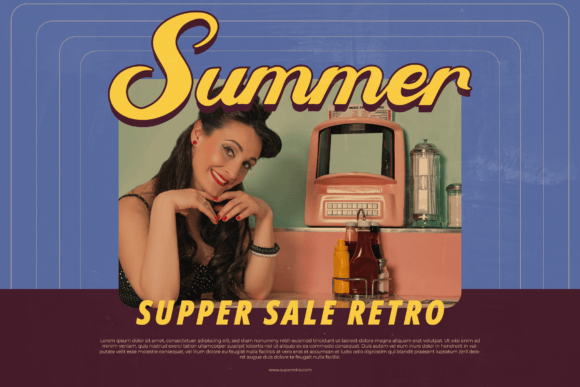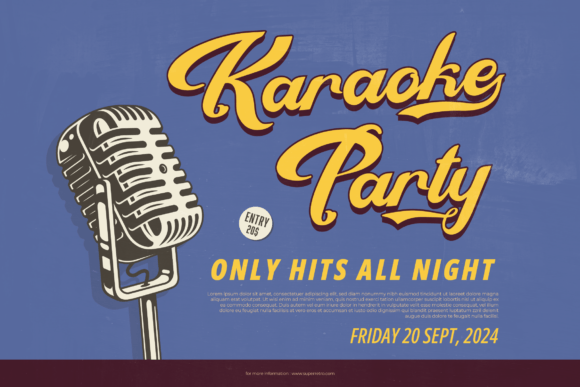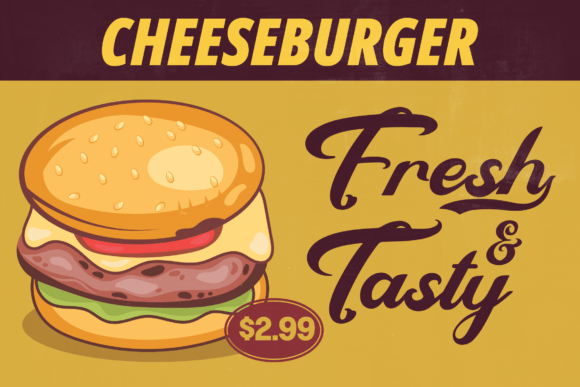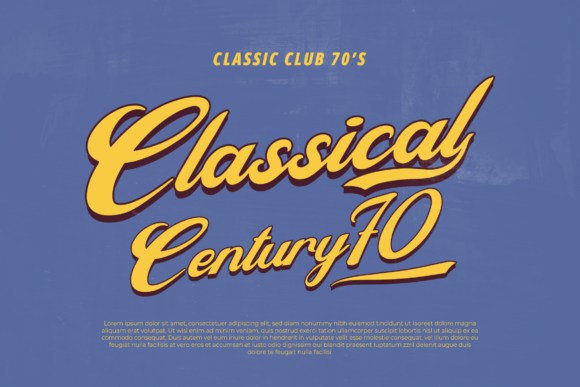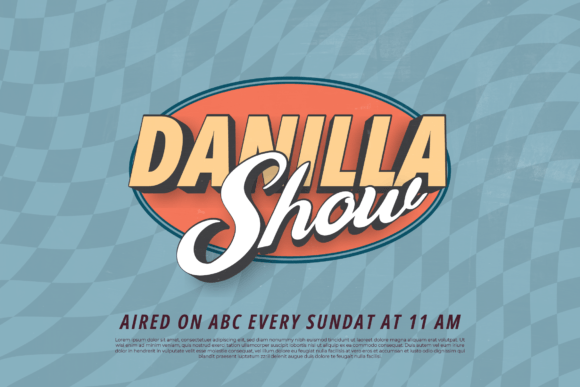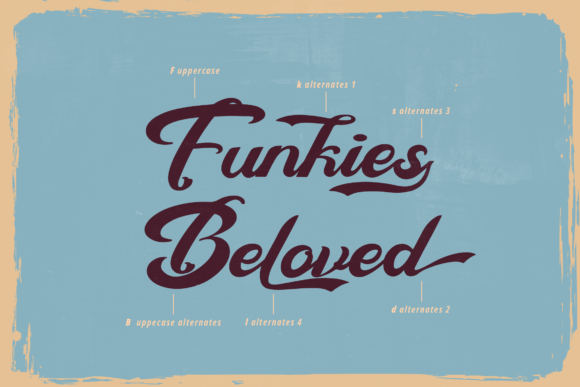
Introducing Berdy Danilla Font: A Retro Script Font with a Classic, Playful Look
Are you looking for a font that can add a touch of nostalgia to your designs? Do you want to evoke a sense of the past in your invitations, posters, or branding? Look no further than Berdy Danilla Font, a retro script font that has a classic, playful look. In this article, we’ll explore the features of Berdy Danilla Font and why it’s perfect for vintage-themed designs.
What is Berdy Danilla Font?
Berdy Danilla Font is a retro script font that has been designed to resemble classic scripts from the past. Its letters are smooth and rounded, giving it a soft, playful look that’s perfect for designs that want to evoke a sense of nostalgia. The font is highly legible, making it suitable for use in a variety of applications, from invitations and posters to branding and packaging.
Key Features of Berdy Danilla Font
- Retro Script Style: Berdy Danilla Font has a classic, retro script style that’s perfect for vintage-themed designs.
- Smooth and Rounded Letters: The font’s letters are smooth and rounded, giving it a soft, playful look.
- Highly Legible: Berdy Danilla Font is highly legible, making it suitable for use in a variety of applications.
- Perfect for Vintage-Themed Designs: The font is ideal for designs that want to evoke a sense of the past, such as invitations, posters, and branding.
Uses of Berdy Danilla Font
Berdy Danilla Font is a versatile font that can be used in a variety of applications, including:
- Invitations: Use Berdy Danilla Font to create vintage-themed invitations for weddings, parties, and other special events.
- Posters: The font is perfect for creating eye-catching posters for movies, concerts, and other events.
- Branding: Use Berdy Danilla Font to create a vintage-themed brand identity for your business or product.
- Packaging: The font can be used on packaging to add a touch of nostalgia and whimsy.
Why Choose Berdy Danilla Font?
There are many reasons why Berdy Danilla Font is a great choice for designers and crafters. Here are a few:
- Unique and Distinctive: Berdy Danilla Font has a unique and distinctive look that will set your designs apart from the rest.
- Easy to Use: The font is highly legible and easy to use, making it perfect for designers of all skill levels.
- Versatile: Berdy Danilla Font can be used in a variety of applications, from invitations and posters to branding and packaging.
- Nostalgic Feel: The font has a nostalgic feel that’s perfect for designs that want to evoke a sense of the past.
Tips for Using Berdy Danilla Font
Here are a few tips for using Berdy Danilla Font in your designs:
- Use it with a Modern Twist: Pair Berdy Danilla Font with a modern sans-serif font to create a interesting contrast.
- Experiment with Colors: Try using Berdy Danilla Font with different colors and textures to add depth and interest to your designs.
- Keep it Simple: Don’t overcomplicate your designs. Keep them simple and clean to let the font shine.
Berdy Danilla Font is a retro script font that has a classic, playful look. Its smooth and rounded letters make it perfect for vintage-themed designs, and its high legibility makes it suitable for use in a variety of applications. Whether you’re a designer or crafter, Berdy Danilla Font is a great choice for adding a touch of nostalgia to your designs. So why not give it a try and see what amazing designs you can create?